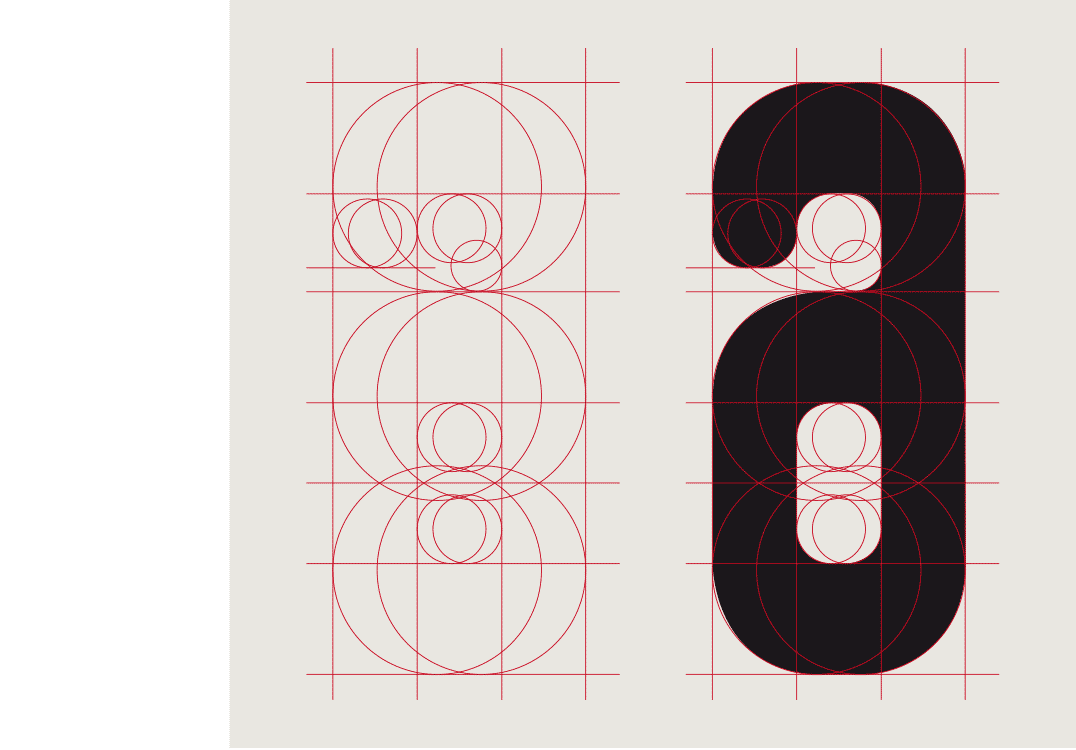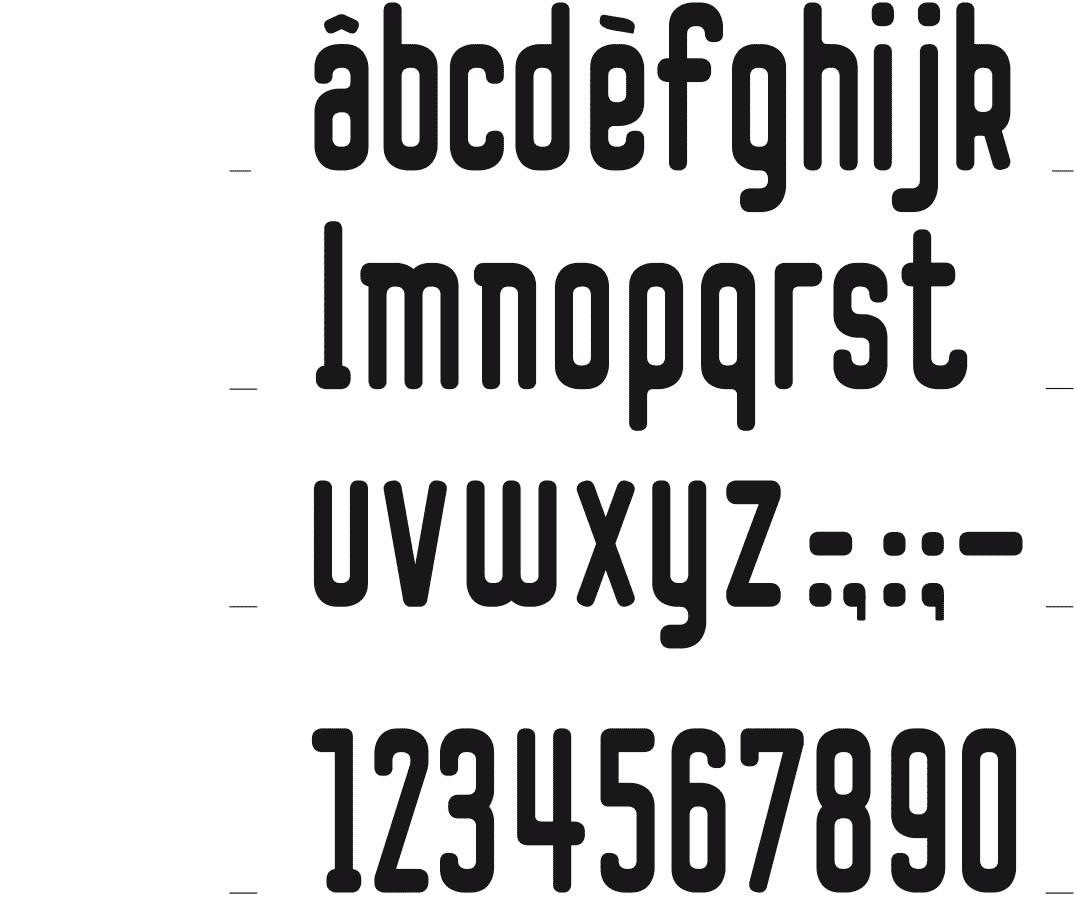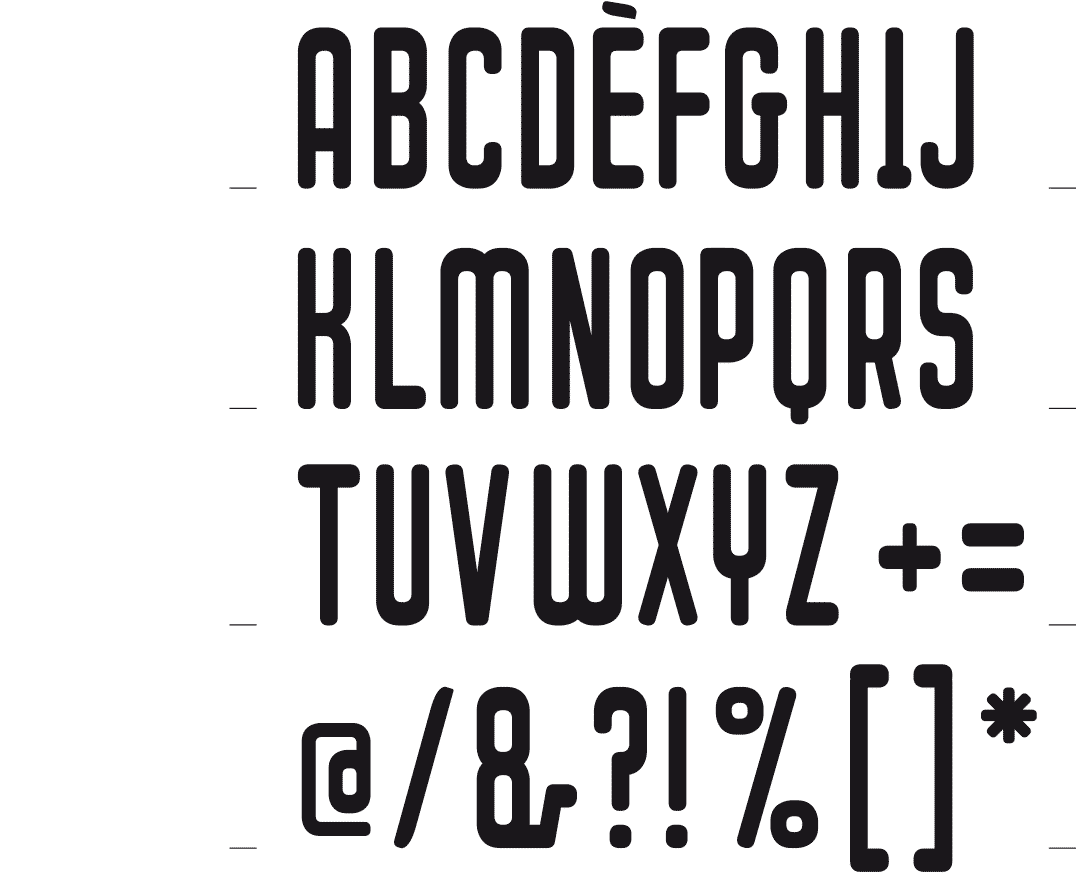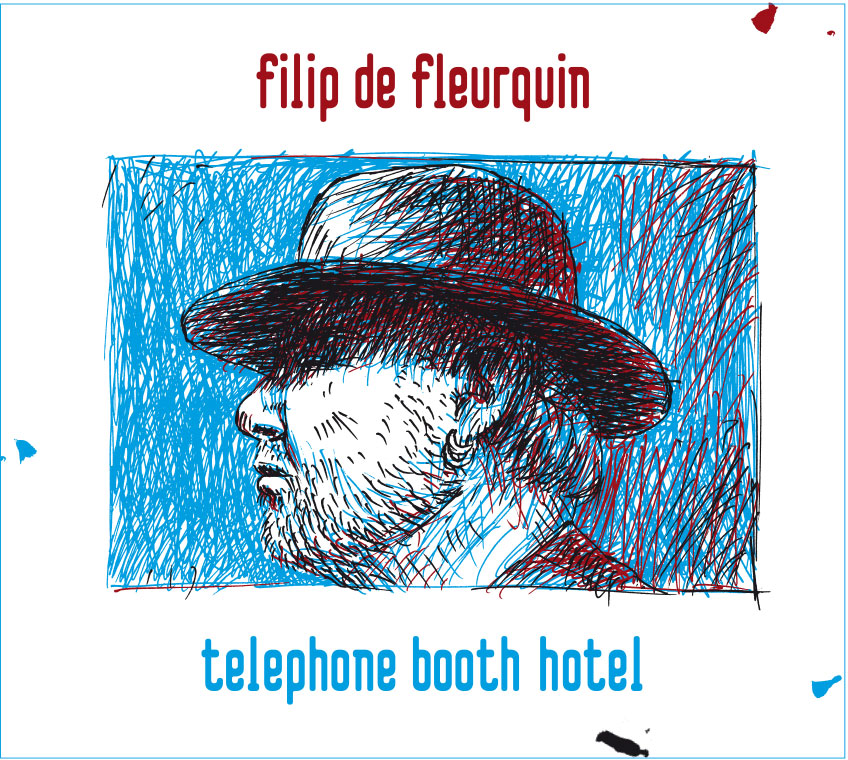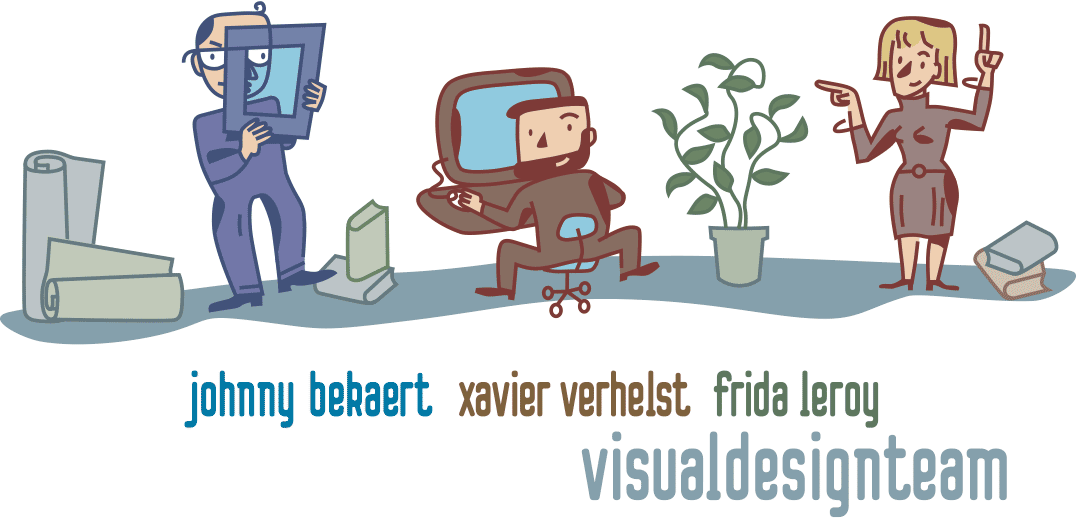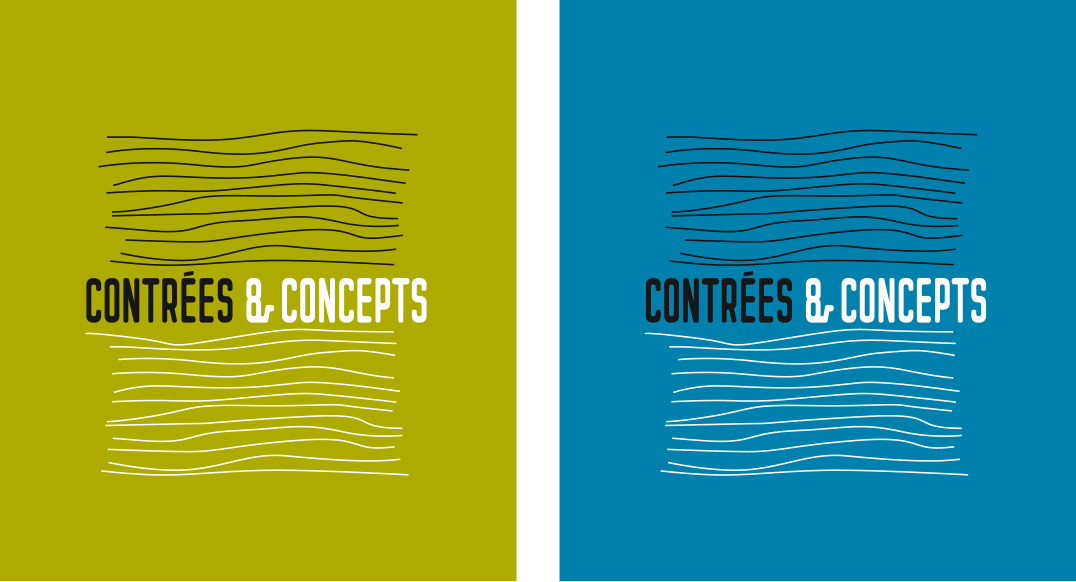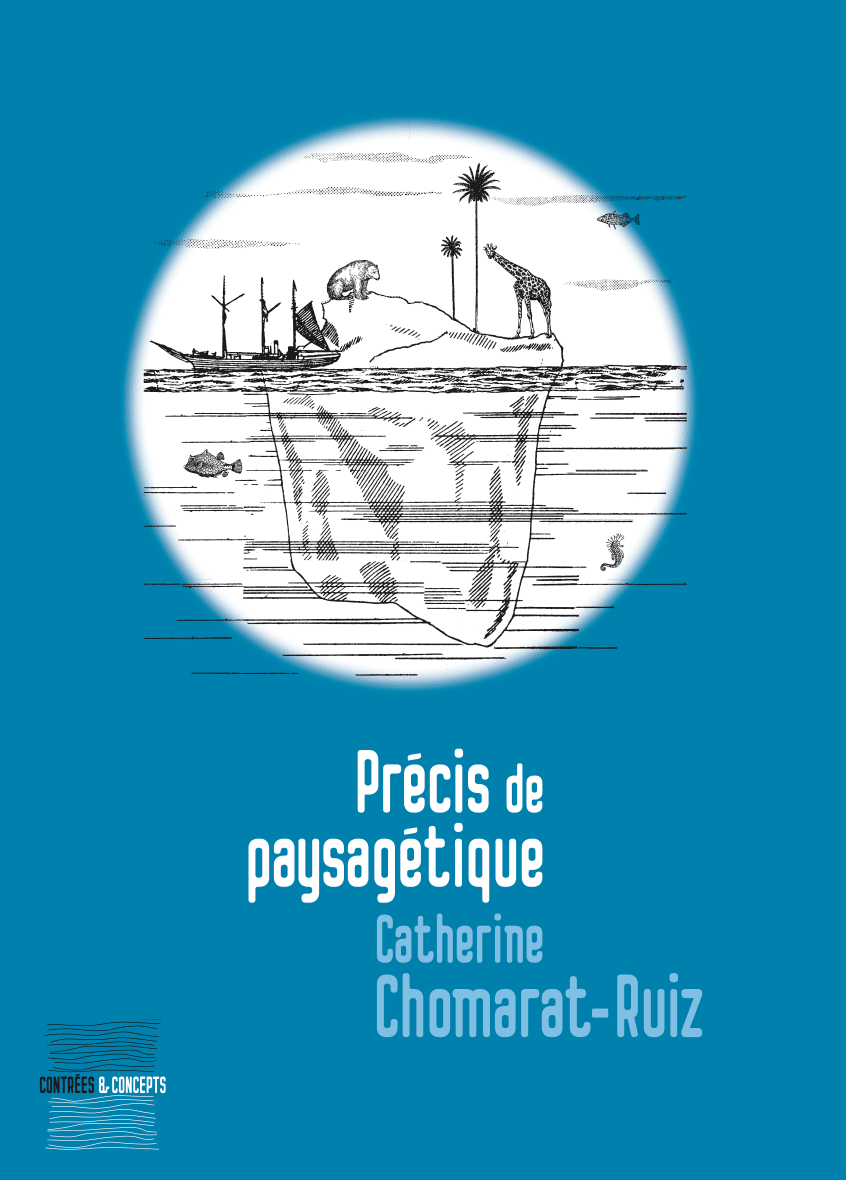
Construction of the lower case ‘a’
[2012] Sometimes I am so deeply immersed in what I’m doing, that I get lost, as happened now. During the stylization process of the Blackblanc font I had, without realizing it, moved farther and farther away from the original font shape. Eventually it was no longer compatible with the original Blacknoir font. So I had to start it all over again ...
In retrospect, I noticed that this version had potential as a separate font.
CD cover Filip De Fleurquin 2012
Header site and business card 2012
Logo for the ‘Contrées & Concepts’ - book collection of the Presses Universitaires de Valenciennes, France 2014
Study cover for a book by Catherine Chomarat-Ruiz - Presses Universitaires de Valenciennes, France 2014